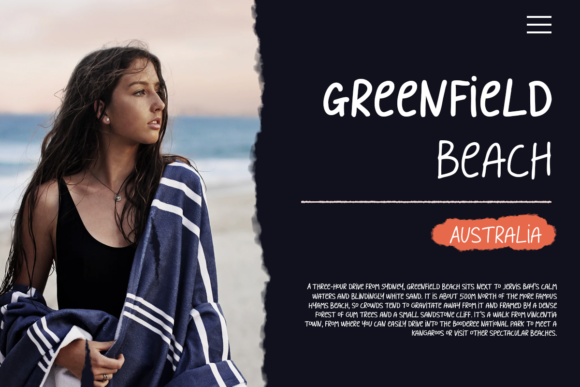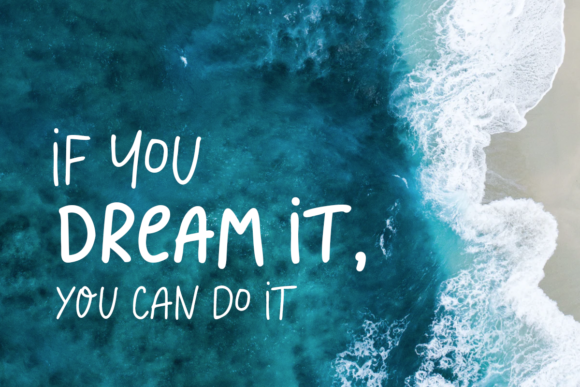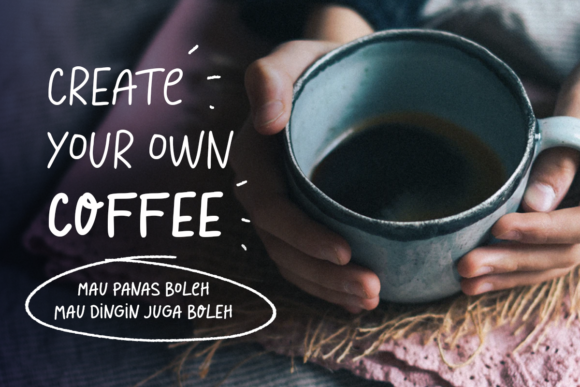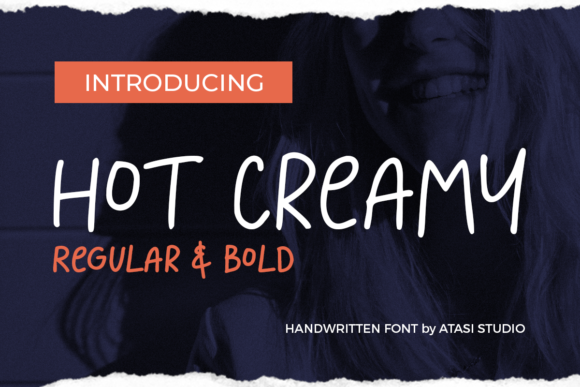
Introduction to Hot Creamy Font
Hot Creamy is a handwritten font with casual look and natural feel.
Use it for any design project that requires a personalized appearance .